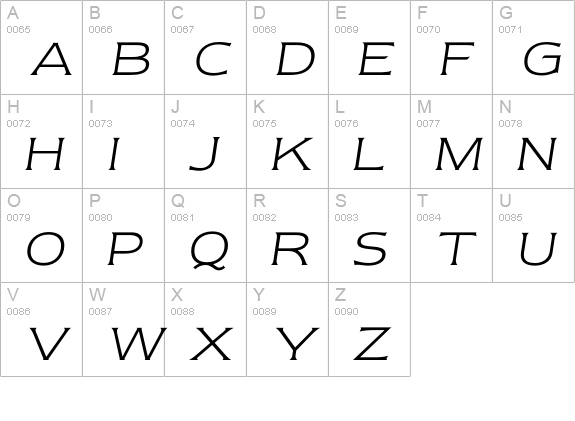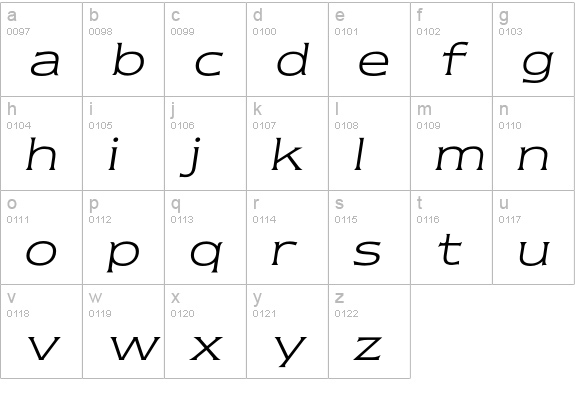
NewtextLightItalic Font Details
Introducing NewtextLightItalic font, a sleek and sophisticated typeface that exudes elegance and modernity. With its delicate curves and stylish design, this font is perfect for adding a touch of refinement to any project. Whether you're working on a branding project, website design, or print materials, NewtextLightItalic font will elevate your work to the next level. And the best part? NewtextLightItalic font is completely free to download! Simply head over to FontsMarket.com to get your hands on this stunning typeface and start using it in your projects today. Don't miss out on the opportunity to add a touch of class to your designs with NewtextLightItalic font. Download it now and see the difference it can make!